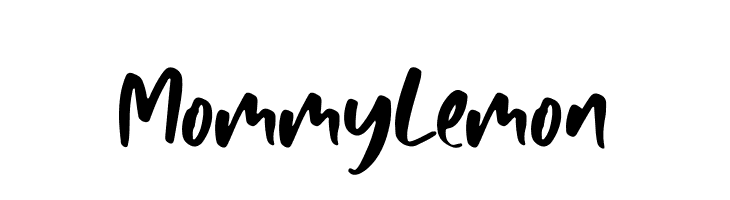
A dynamic, cursive script font with fluid, interconnected strokes.
A lively and elegant script font with flowing, dynamic curves.
A bold, dynamic handwritten font with fluid strokes and a playful yet assertive style.
A bold, sketch-style font with a hand-drawn, textured appearance.
A dynamic, italicized script font with fluid, expressive strokes.
A dynamic brush script font with bold, fluid strokes and a hand-painted look.
A dynamic, expressive handwritten font with fluid strokes and elegant slant.
A bold, expressive handwritten font with dynamic strokes.
A cursive, handwritten font with elegant, flowing lines and a natural feel.